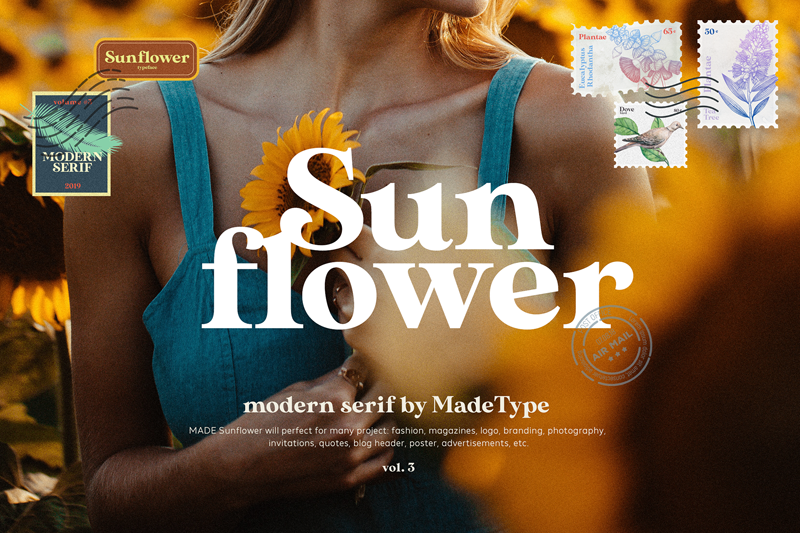
MADE Sunflower is a modern serif typeface with old style elements. MADE Sunflower will perfect for many project: fashion, magazines, logo, branding, photography, invitations, quotes, blog header, poster, advertisements, postcard, etc. Font is FREE for PERSONAL USE. Contact me mail for commercial use and questions: madetypeinfo@gmail.com ----- FOR PERSONAL AND COMMERCIAL WORK https://www.fontspring.com/fonts/madetype https://creativemarket.com/MadeType https://www.youworkforthem.com/designer/1002/madetype/ https://crella.net/store/madetype/ ----- https://www.behance.net/madetype Email for questions: madetypeinfo@gmail.com |